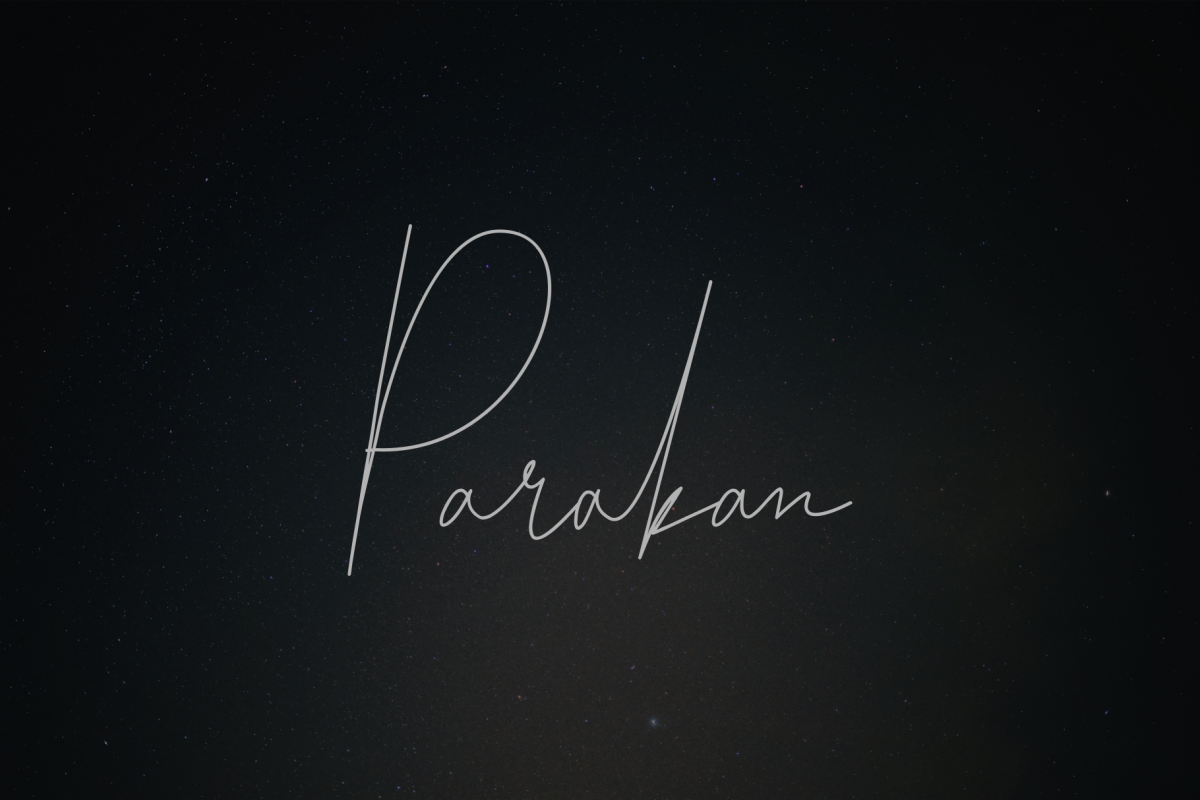
Parakan Script
Parakan-Regular
Parakan Script is a fresh and modern signature font, handmade for an authentic and stunning look. Use this for logotype and headlines for a cool and hip feel.